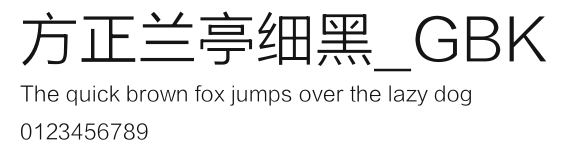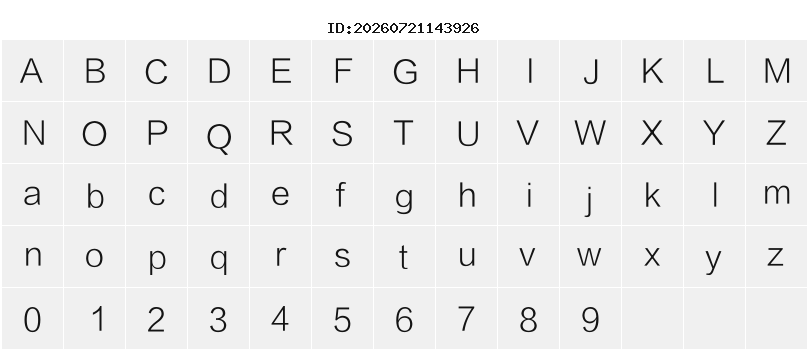
• Font Name: 方正兰亭细黑_GBK
About 方正兰亭细黑_GBK.ttf
方正兰亭细黑_GBK.ttf is a modern, elegant sans-serif font designed for ultimate readability and visual harmony. Perfect for branding, headlines, web design, and print materials.